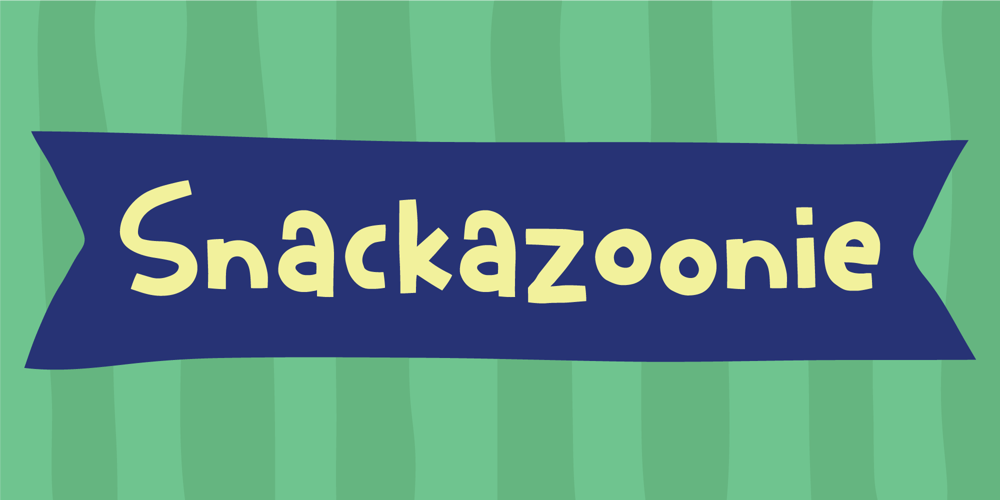
Snackazoonie
Snackazoonie font
Snackazoonie Font Family was designed by Jakob Fischer and published by PizzaDude.dk. Snackazoonie contains 2 styles and family package options. My Snackazoonie font is about having fun, playing it loose and having a good time!